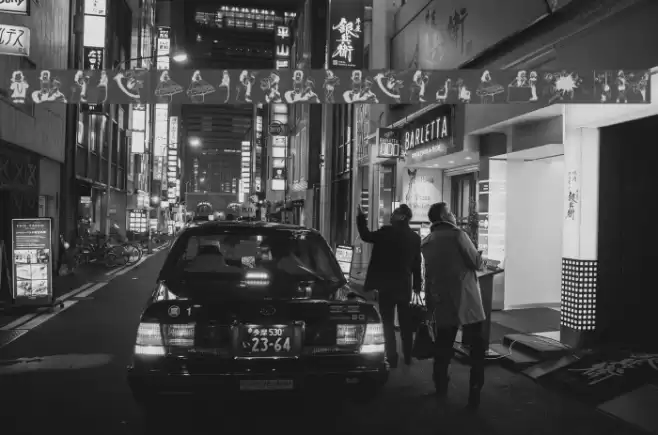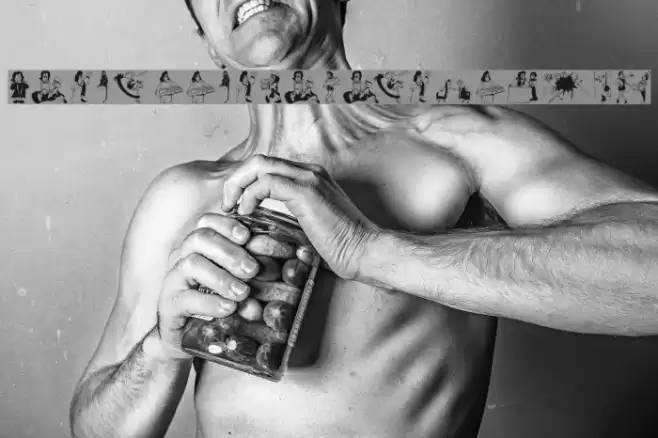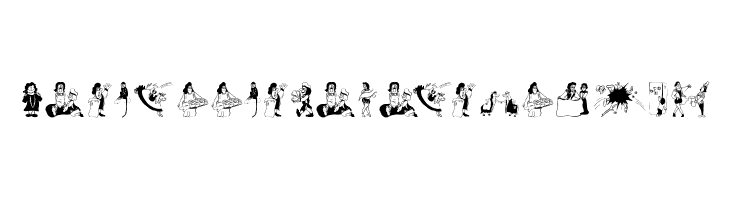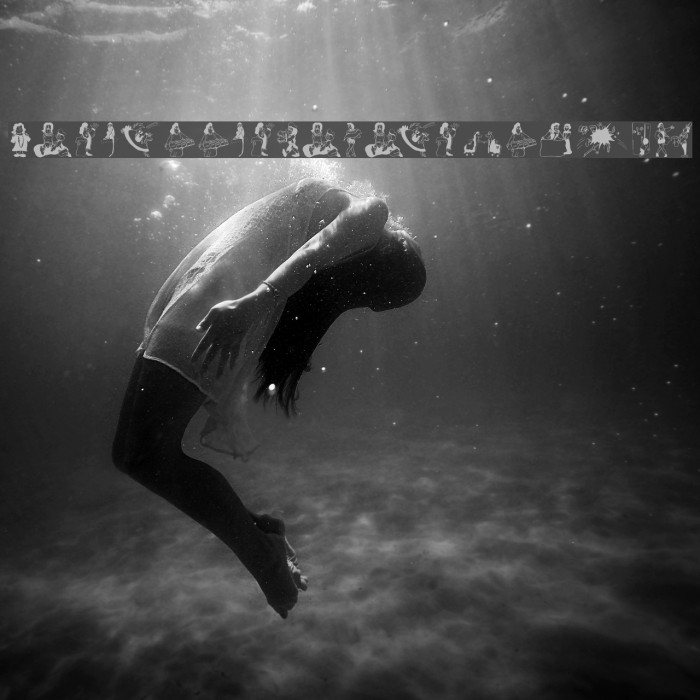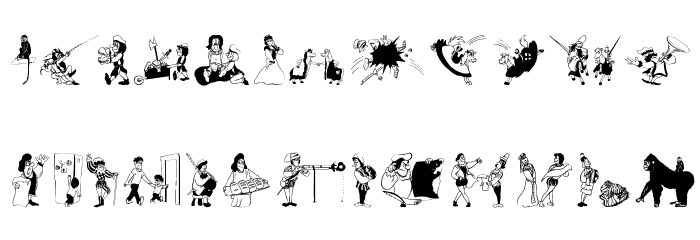
RenaissanceBeingsShow Font
RenaissanceBeingsShow Description
A highly decorative and whimsical display font composed of Renaissance-era characters and scenes, each letter and symbol represented by a unique illustrated figure or tableau. The style is playful, detailed, and illustrative, with strong narrative elements and a hand-drawn, cartoon-like quality.
A playful, illustrated display font featuring Renaissance characters and scenes from Uncategorized fonts.
- Proposed Projects: Posters, themed event invitations, book covers, educational materials, theatrical promotions, creative branding.
- Overall Style: Decorative, Whimsical, Narrative
- Use Case: Headlines, Posters, Logos, Themed Graphics